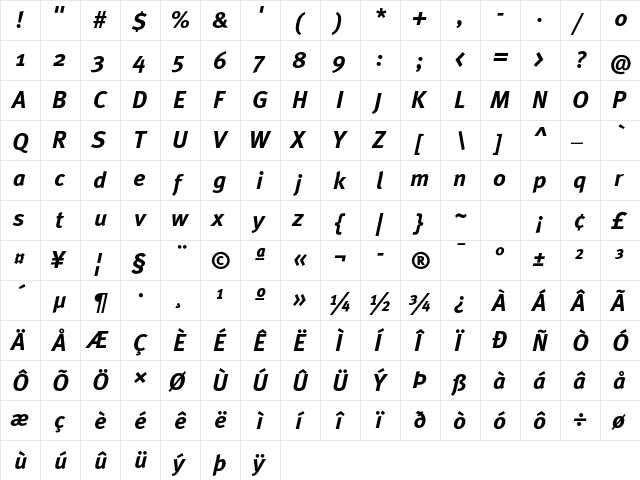
MetaPro-BoldItalic Regular
| Foundry | FSI Fonts und Software GmbH |
| Designer | Erik Spiekermann |
Design Context for MetaPro-BoldItalic Typeface
MetaPro-BoldItalic is a composed and adaptable typeface that performs quietly and consistently across a wide range of design contexts. Its italic angle brings a sense of urgency and motion to the letterforms. The heavy weight commands attention and anchors typographic hierarchies.
Pro Tip: Use MetaPro-BoldItalic for emphasis, pull quotes, and subheadings where its slanted energy can add rhythm to the layout.